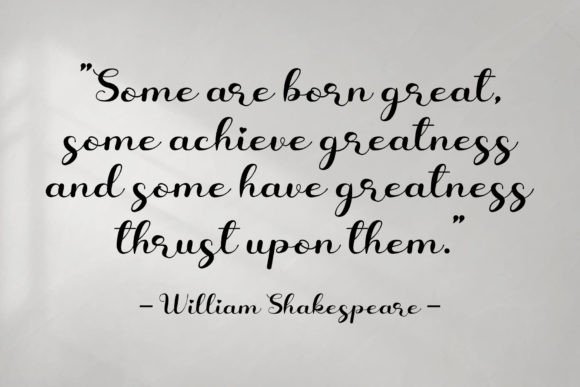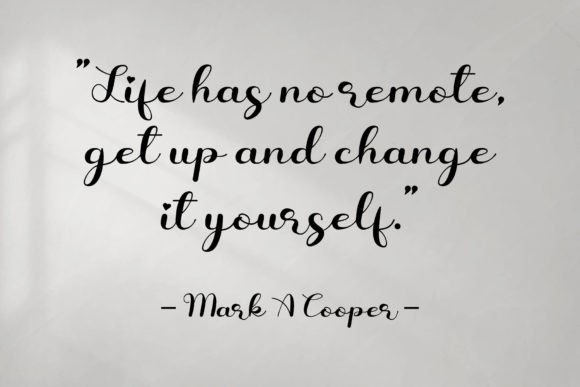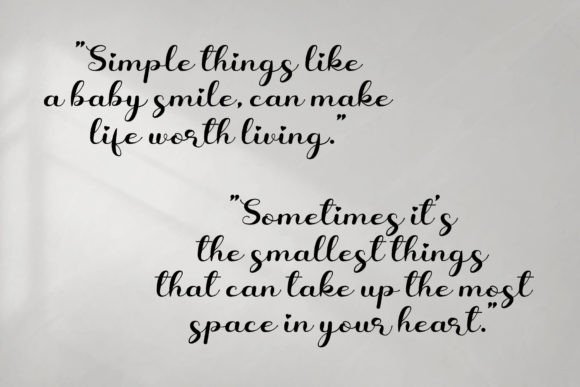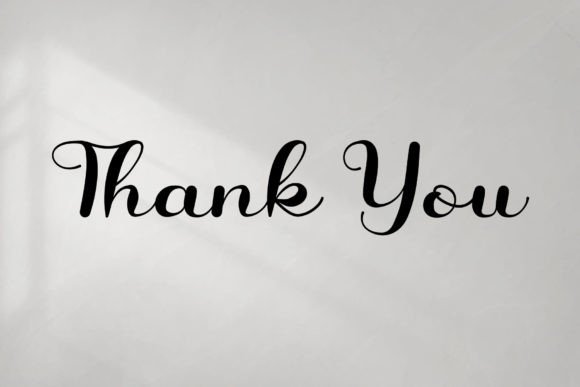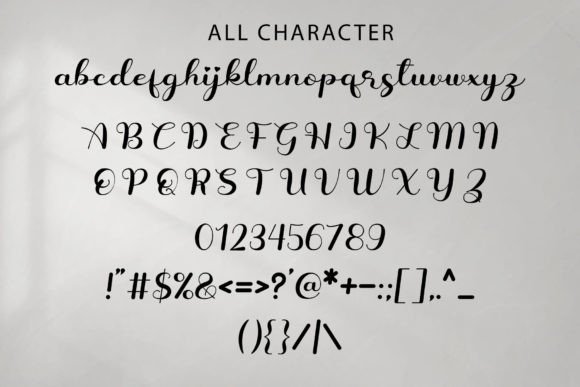
The Perfect Handwritten Touch: A Deep Dive into Baby Font
I’ll never forget the time I was working on a wedding invitation project for a dear friend. I had all the design elements in place – the beautiful floral arrangement, the elegant layout, and the heartfelt message. But something was missing. The font I had chosen just didn’t have that special je ne sais quoi that would elevate the design from lovely to unforgettable. That’s when I stumbled upon Baby Font, and it completely transformed my design. In this article, I’ll share my love for this stylish and elegant decorative handwritten font, its features, and how to make the most of it in your designs.
An Honest Review of Baby Font
- ✨ Elegant and stylish: Baby Font adds a touch of sophistication to any design, making it perfect for wedding invitations, thank you cards, and greeting cards.
- ✅ PUA encoded: This font is PUA encoded, which means you can easily access all the glyphs and special characters.
- 💕 Handwritten touch: The font has a beautiful, handwritten feel that adds a personal touch to any design.
- 🎨 Versatile: Baby Font can be used for a variety of design projects, including logos, business cards, and quotes.
While Baby Font is an amazing font, there are a few things to keep in mind:
- ⚠️ Limited use cases for bold text: While the font is beautiful in its regular form, it may not be the best choice for bold text or headings.
- 🤔 Some characters may require manual adjustment: Depending on the design, some characters may need to be manually adjusted for optimal spacing and alignment.
The Story Behind Baby Font
Baby Font was created with the intention of providing a beautiful and elegant handwritten font for designers and crafters. The designer wanted to create a font that would add a personal touch to any design, while still being versatile and easy to use. With its PUA encoding and OpenType features, Baby Font has become a popular choice for designers and hobbyists alike.
| Font Name | Baby Font |
| Author | Kido Studio |
Q: Is Baby Font suitable for body text?
A: While Baby Font is beautiful, it’s best suited for headings and titles rather than body text.